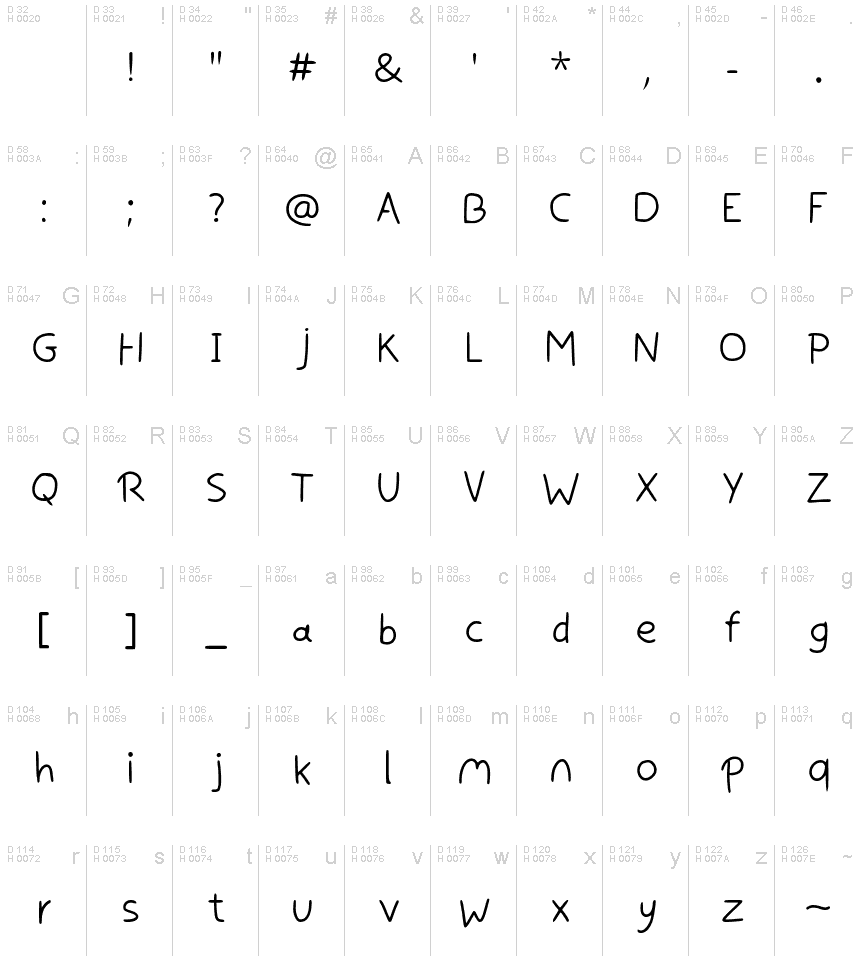
Handwriting Uwu By Moni Regular
Handwriting Uwu is the perfect font for those seeking a casual and playful handwritten style. Designed by Monica AndArtie, this light-weight font is perfect for creating fun and friendly designs. Whether you're designing invitations, greeting cards, or social media posts, Handwriting Uwu is a great choice for adding a touch of whimsy to your project.
I made this font myself for a comic hope ya find it useful
Handwriting Uwu By Monicaartie